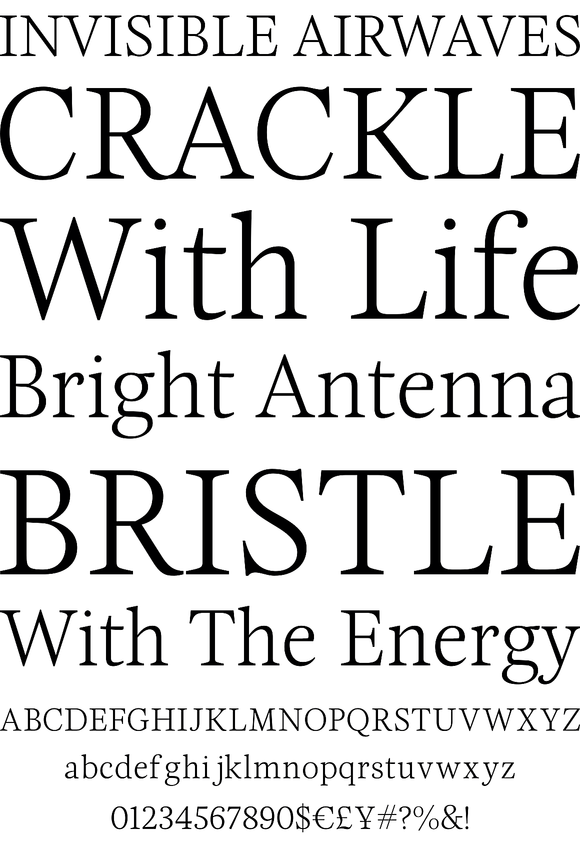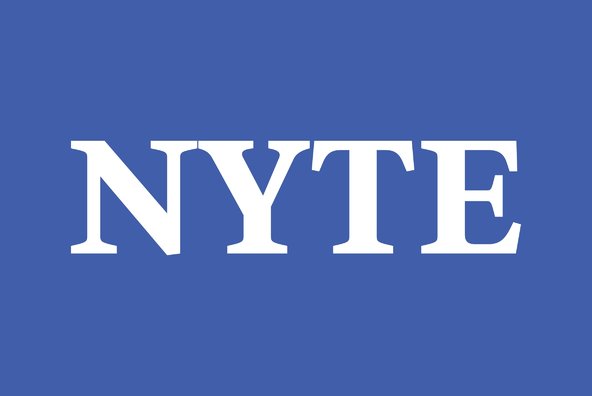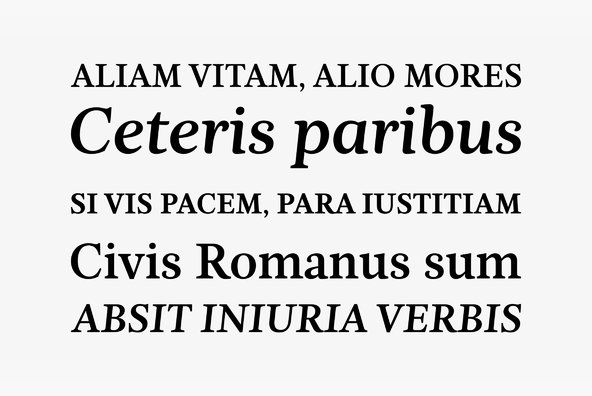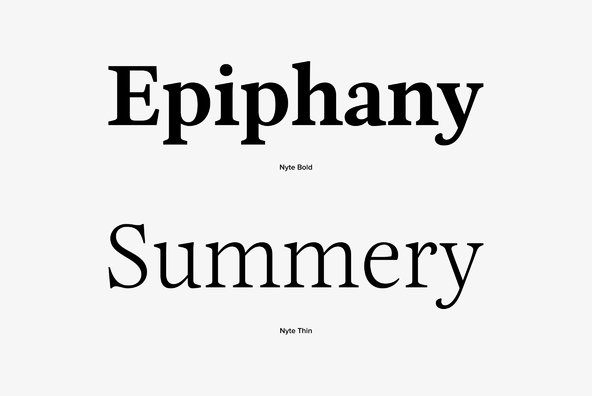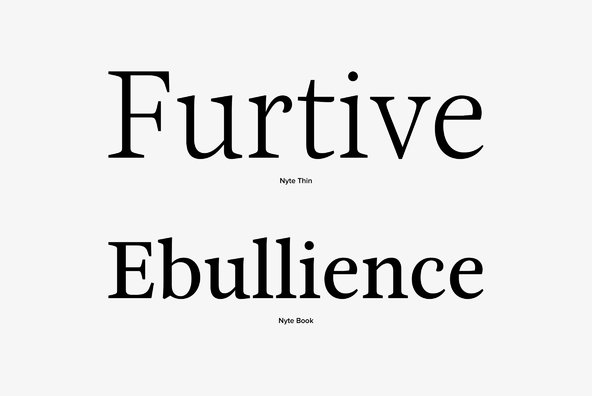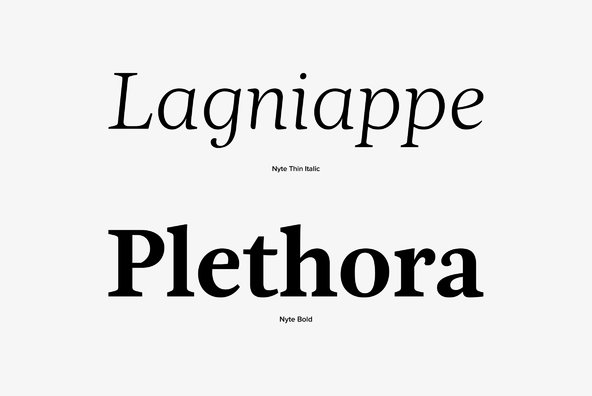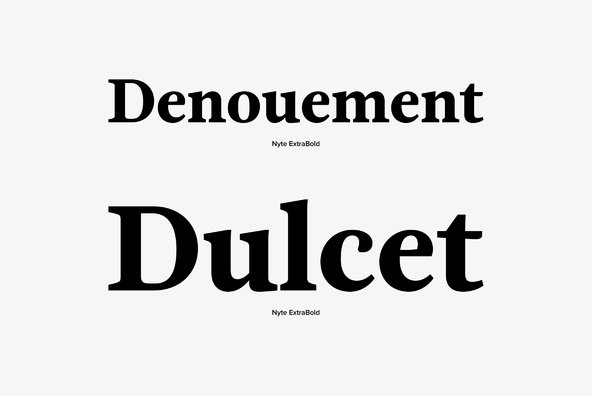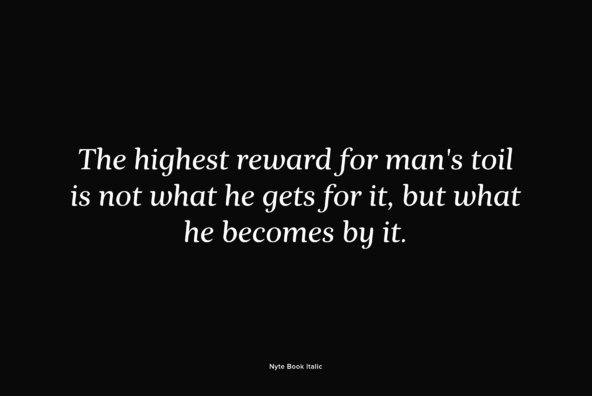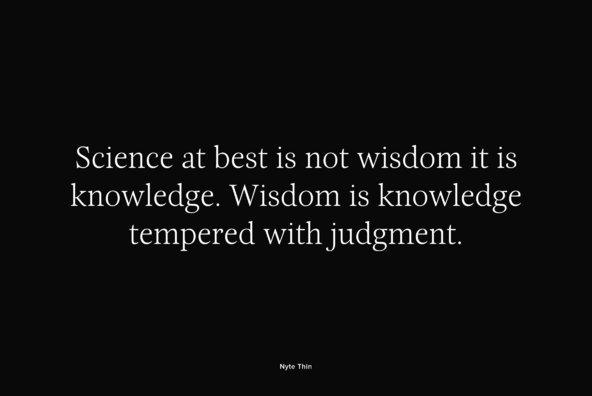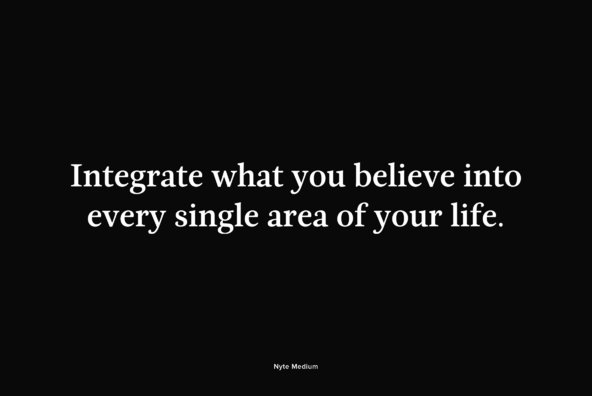
Foundry: DSType
For our serif display we chose a font called Esta for its versatility and had the designer (Dino dos Santos) draw several more weights and customize some of the characters. He renamed our version of the font Nyte. Having a versatile serif face is key for us because we cover such a broad range of topics" - Arem Duplessis, Design Director.
Designed in 2009 exclusively for The New York Times Magazine Magazine, the font family Nyte includes more than two dozens of fonts, divided into three kinds of styles: Roman, Italic and Display, now expanded with new condensed versions.